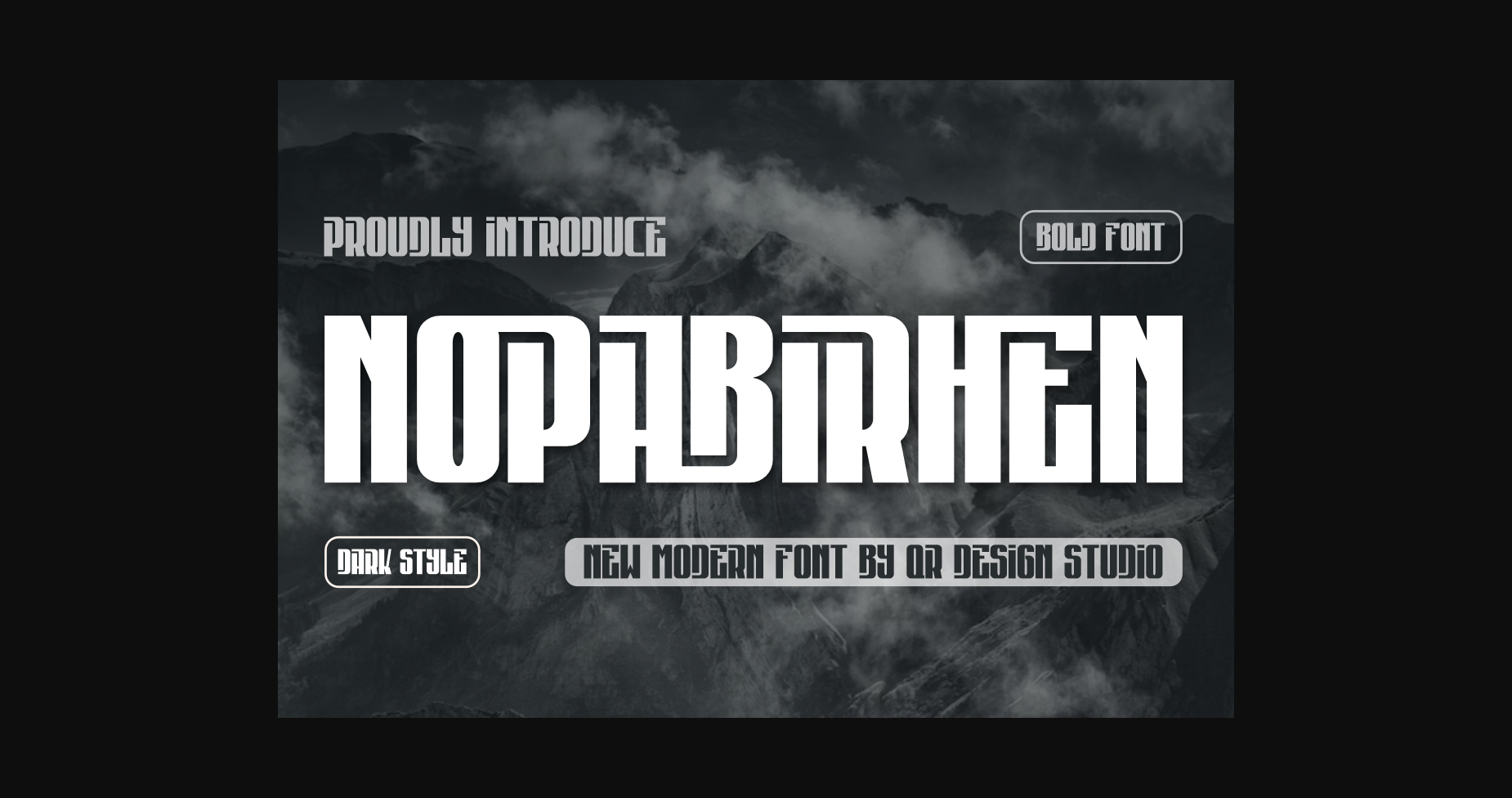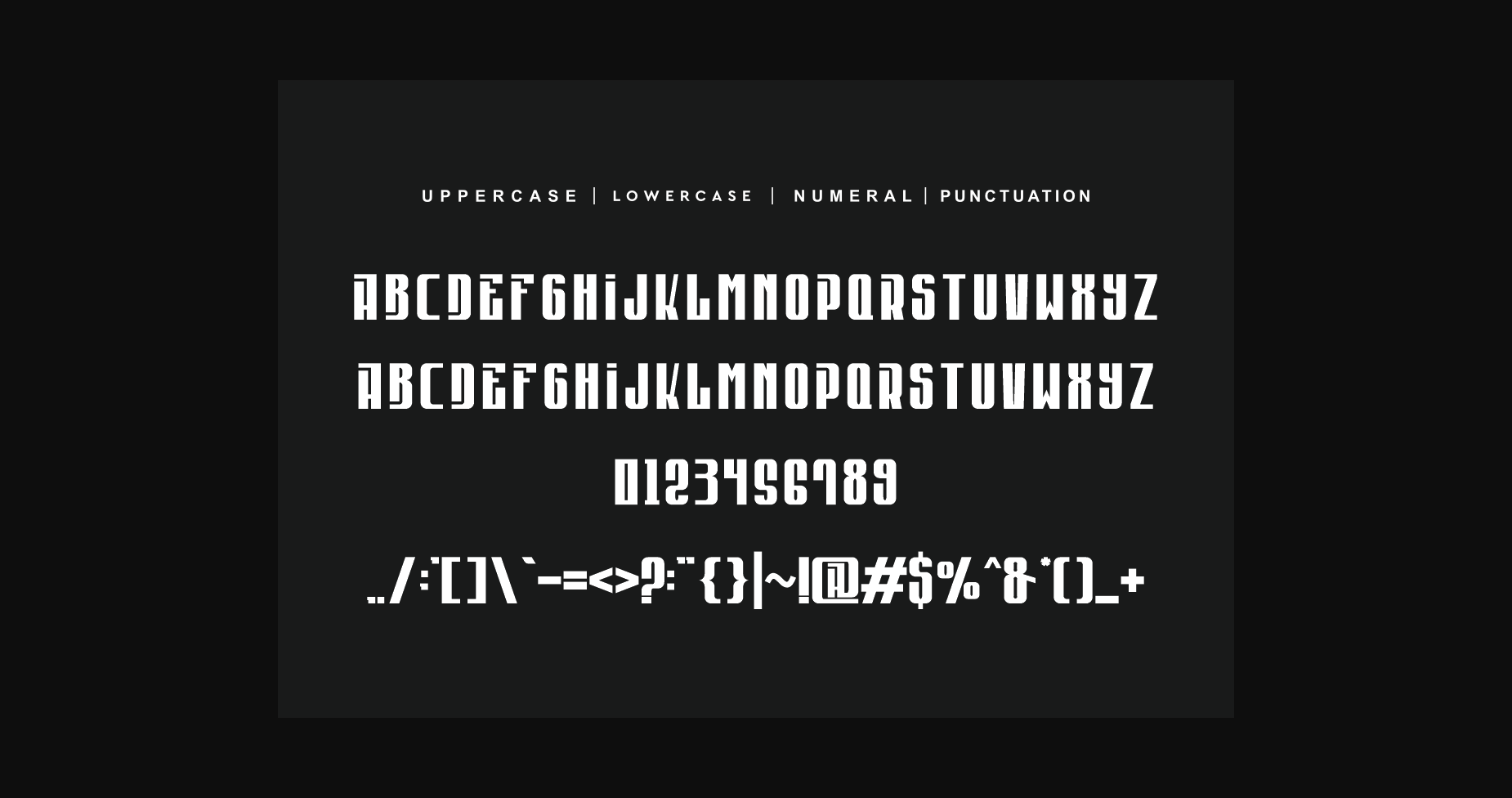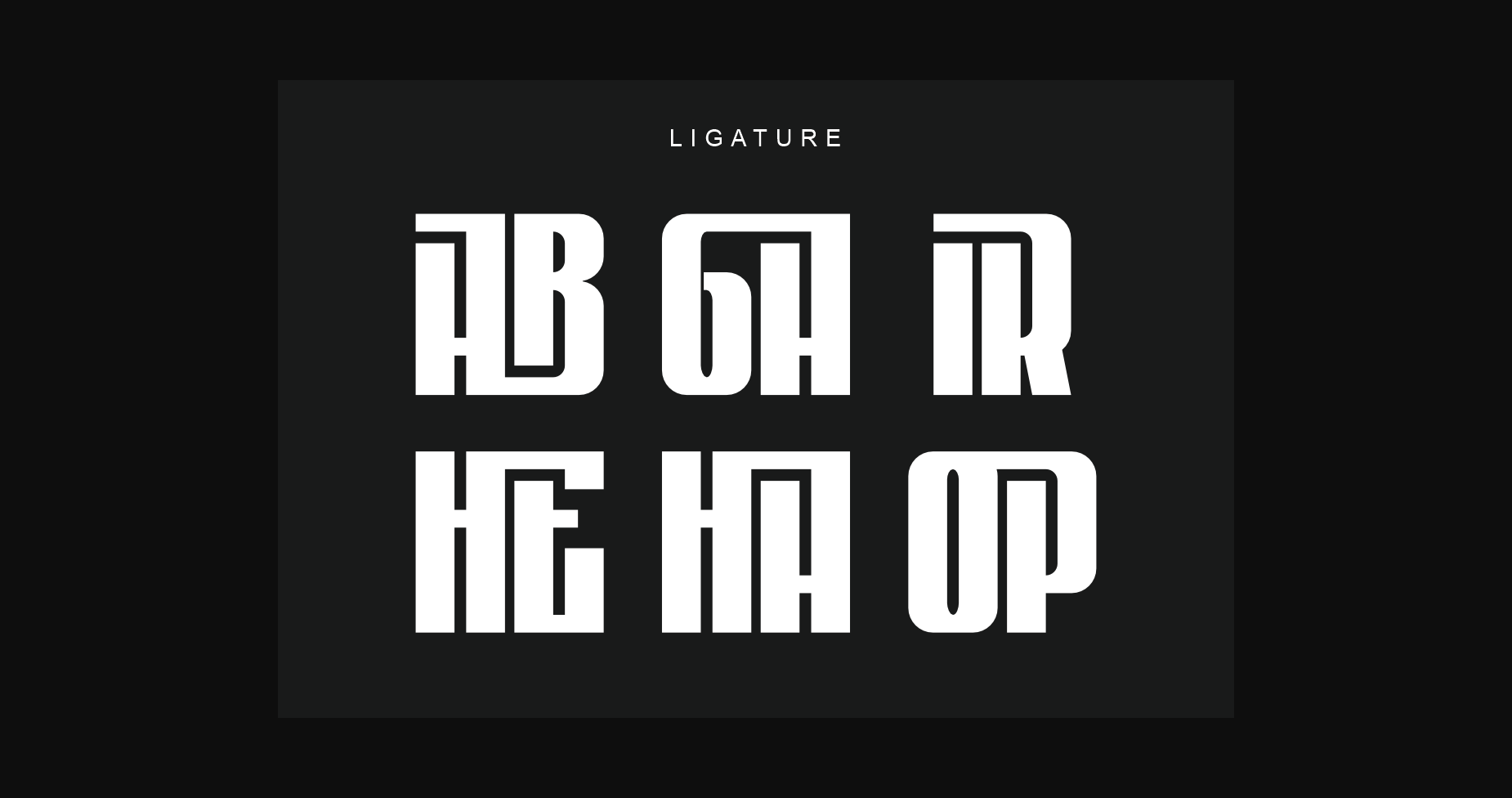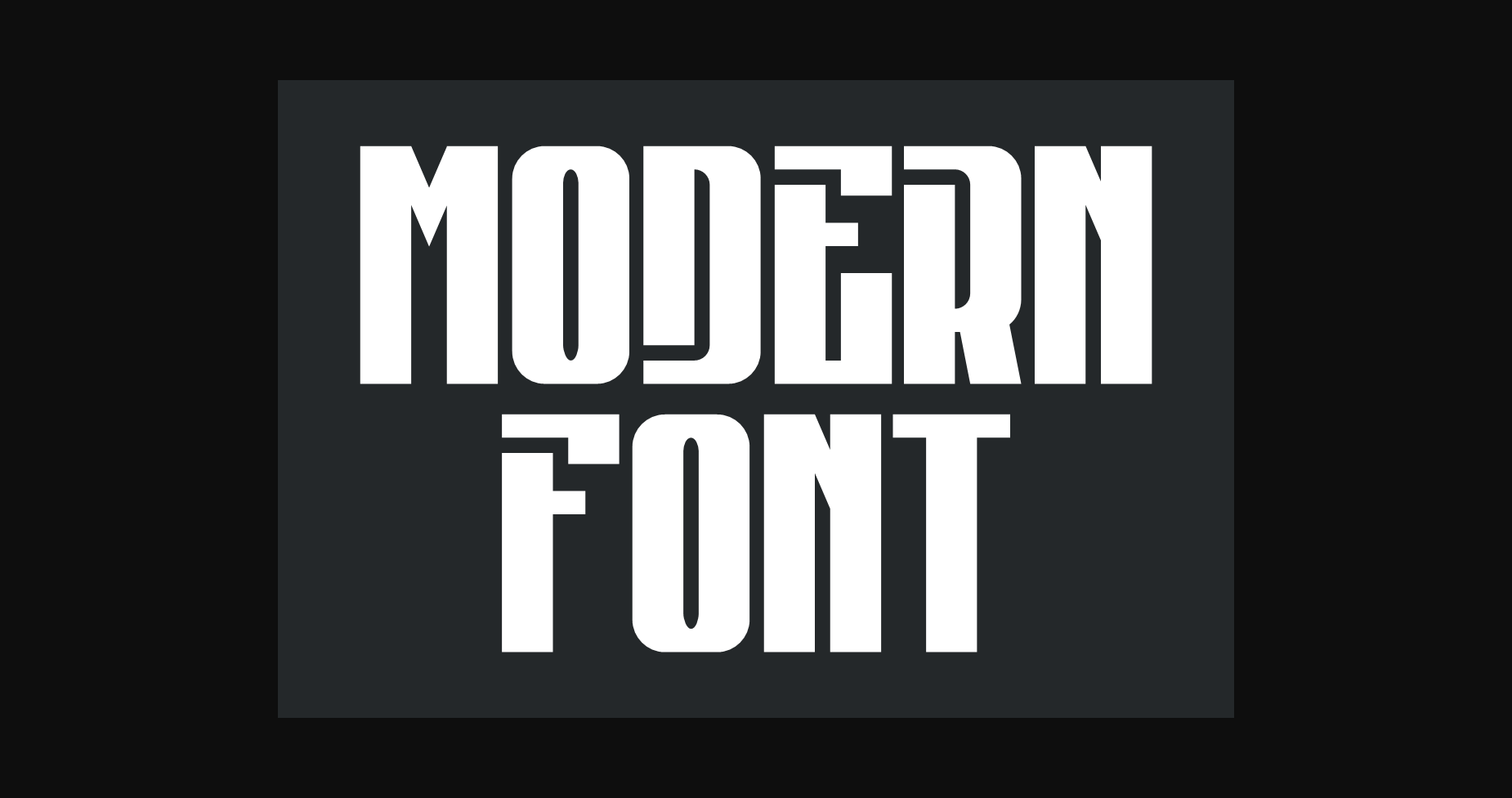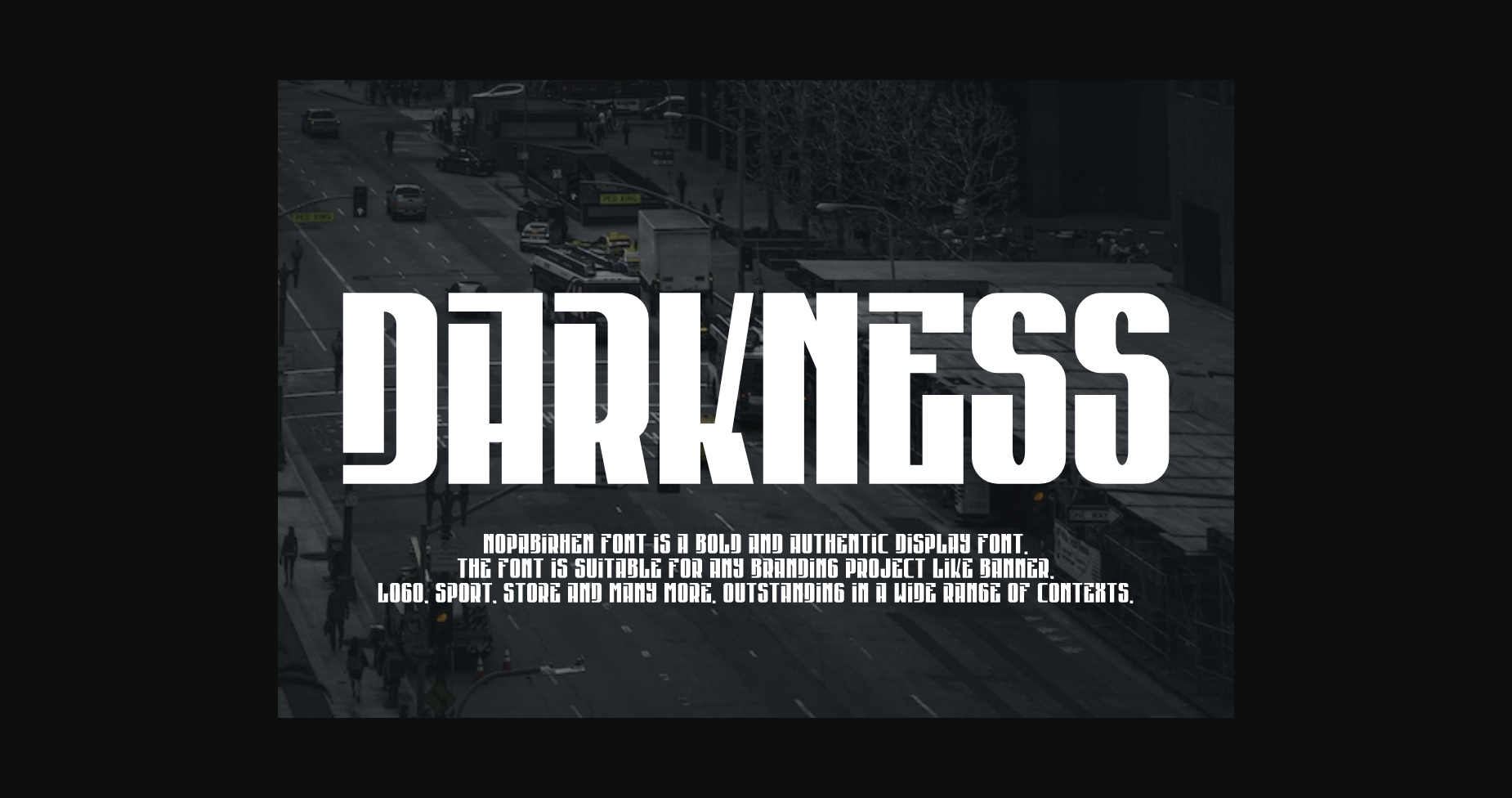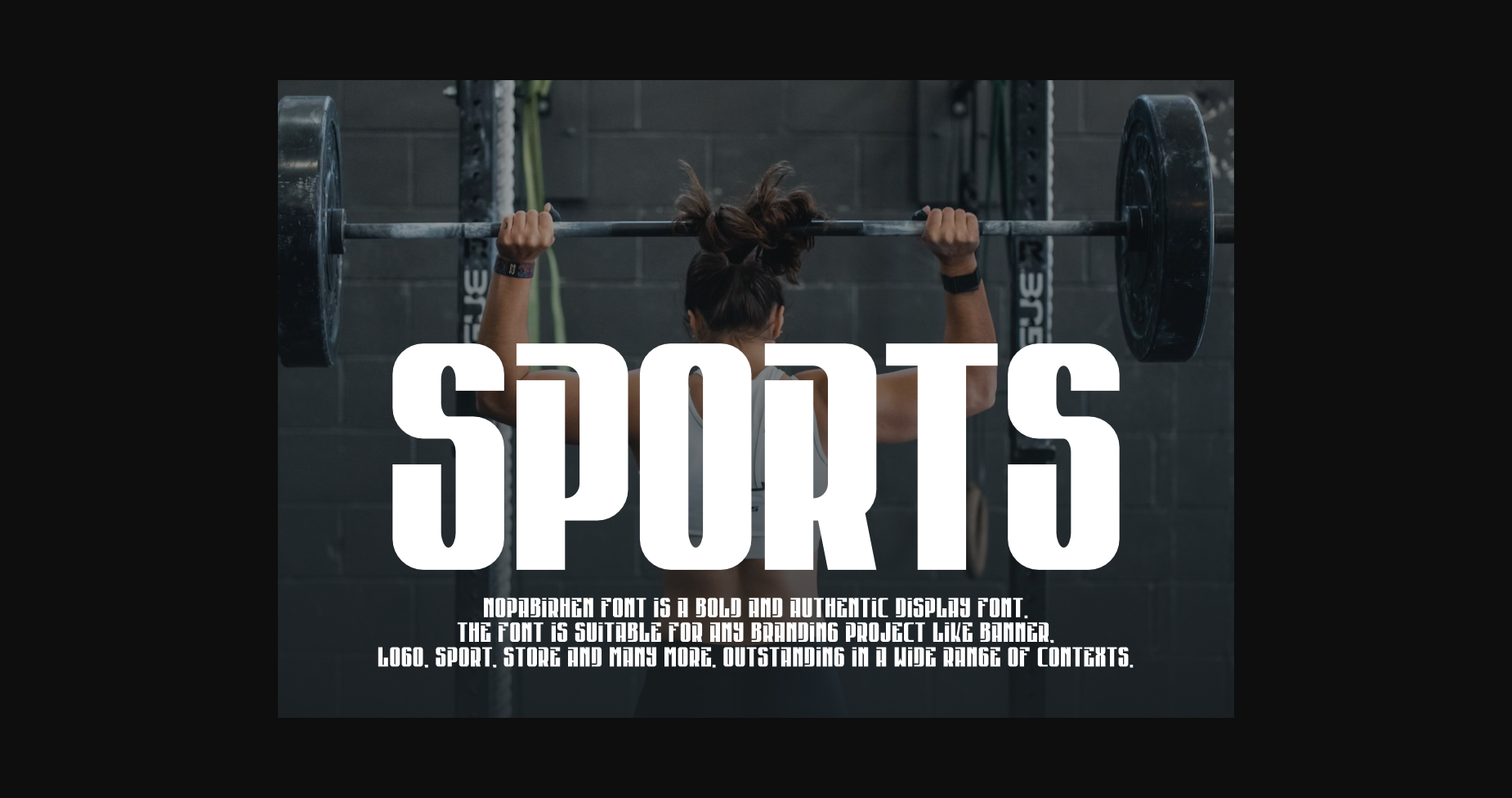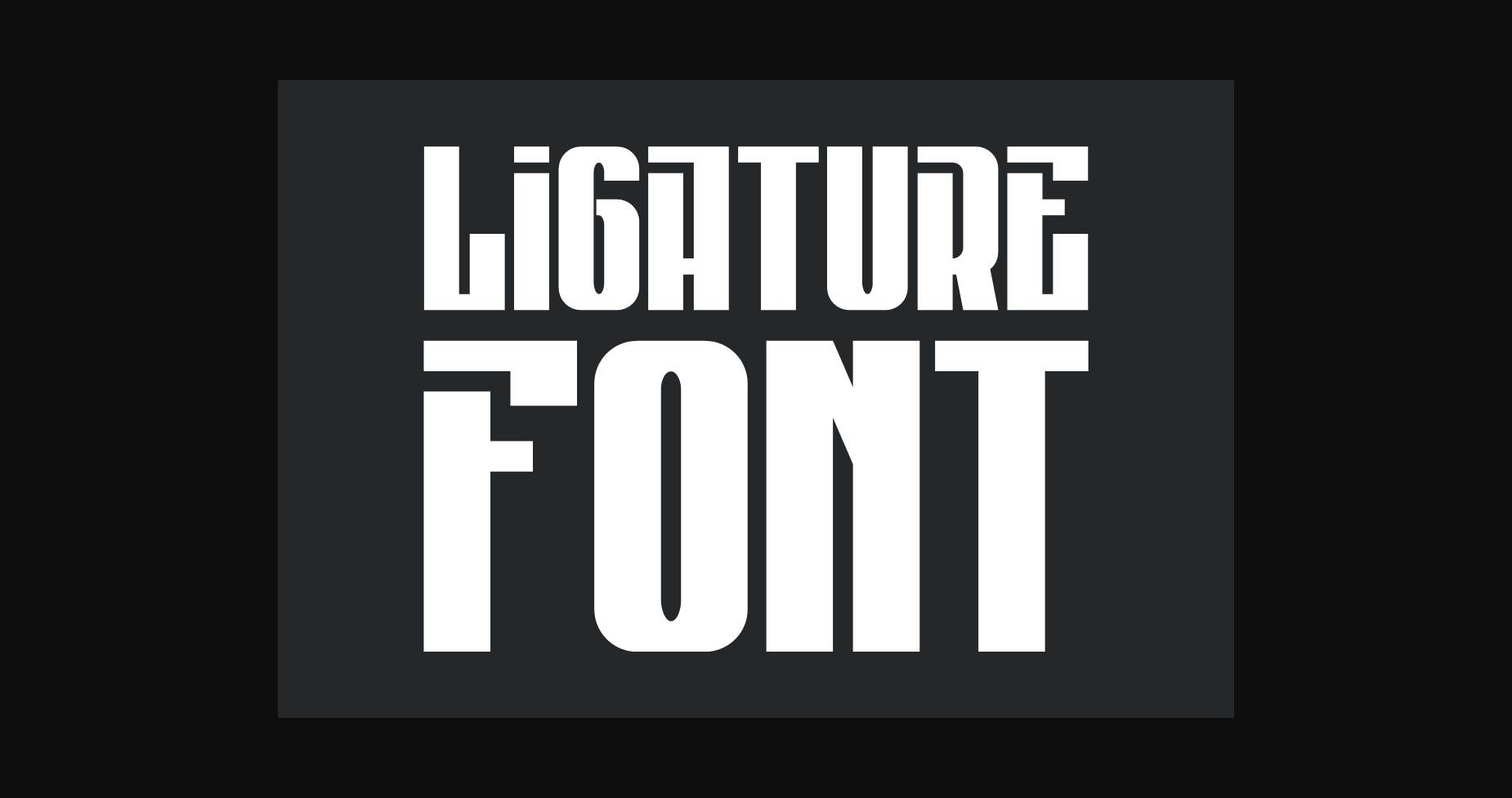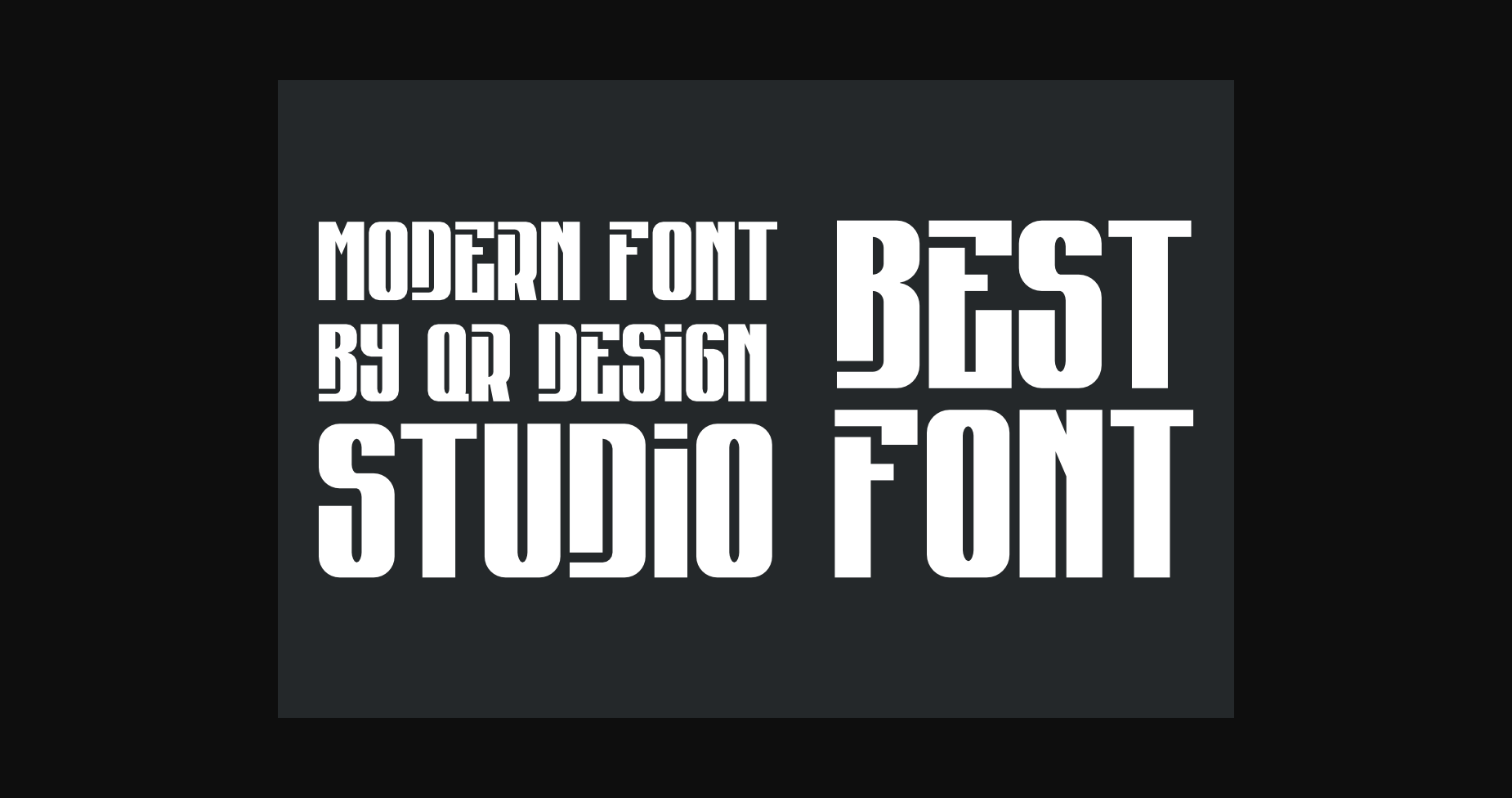
About Nopabirhen Font
Nopabirhen Font is a bold and authentic display font.
The font is suitable for any branding project like logo, sport, and many more.